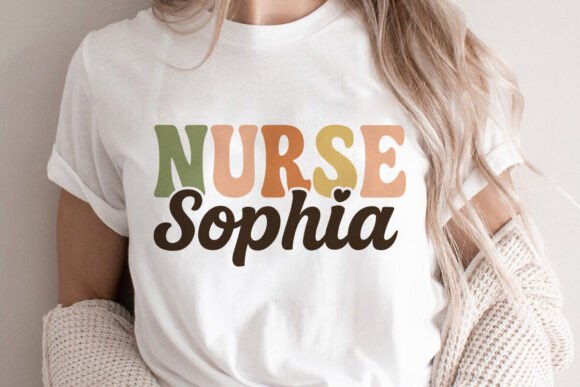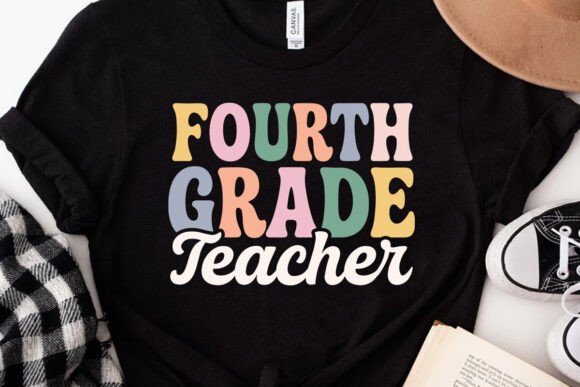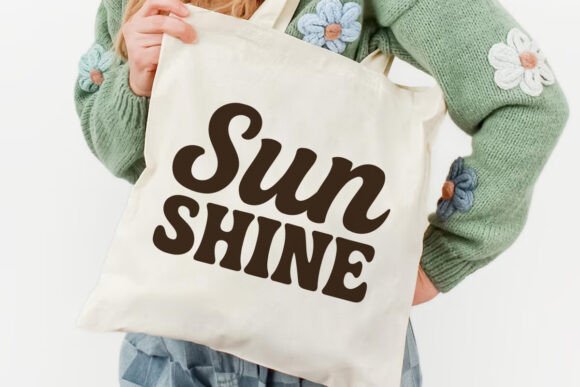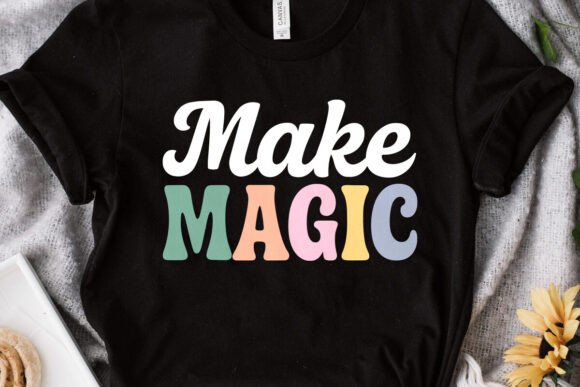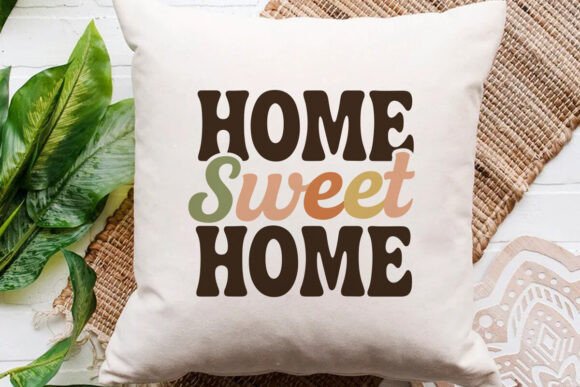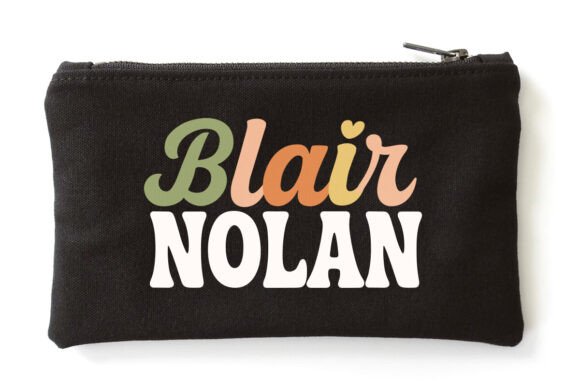
Introduction to Dalia Lucas Font
Dalia Lucas is a script & groovy font duo and retro, boho, and fun 70s display font.
Whether youโre using it for crafts, digital design, presentations, or making greeting cards, this font has the potential to become your favorite, no matter the occasion It is the best choice for creating eye-catching logos, branding, and quotes.
Dalia Lucas Font offers exceptional quality and versatility, making it a valuable addition to your design toolkit. Whether you’re creating for personal projects or commercial use, Dalia Lucas Font delivers professional results.